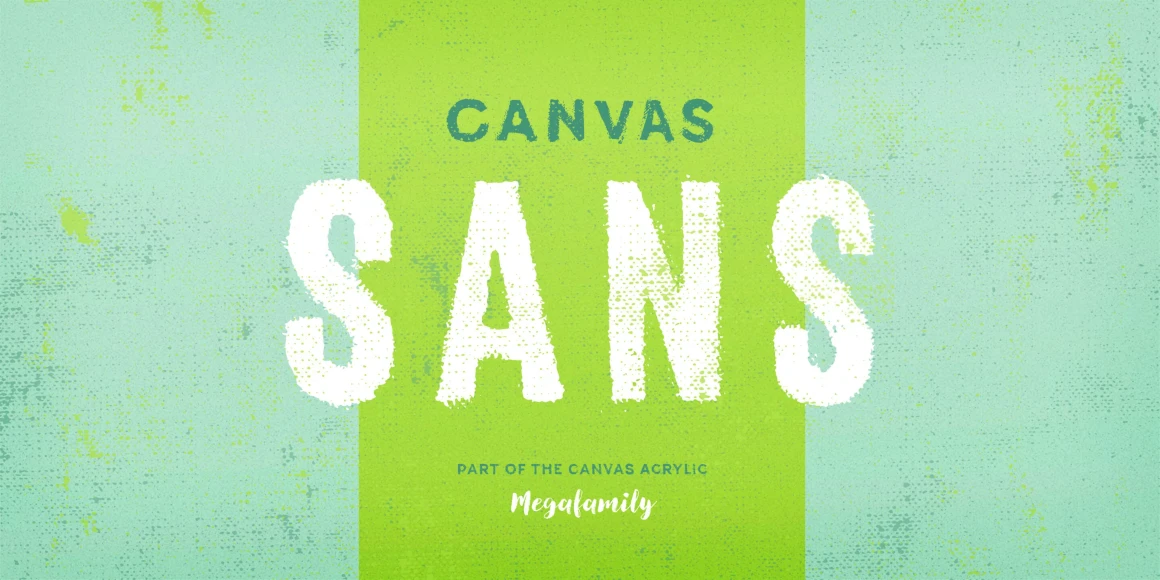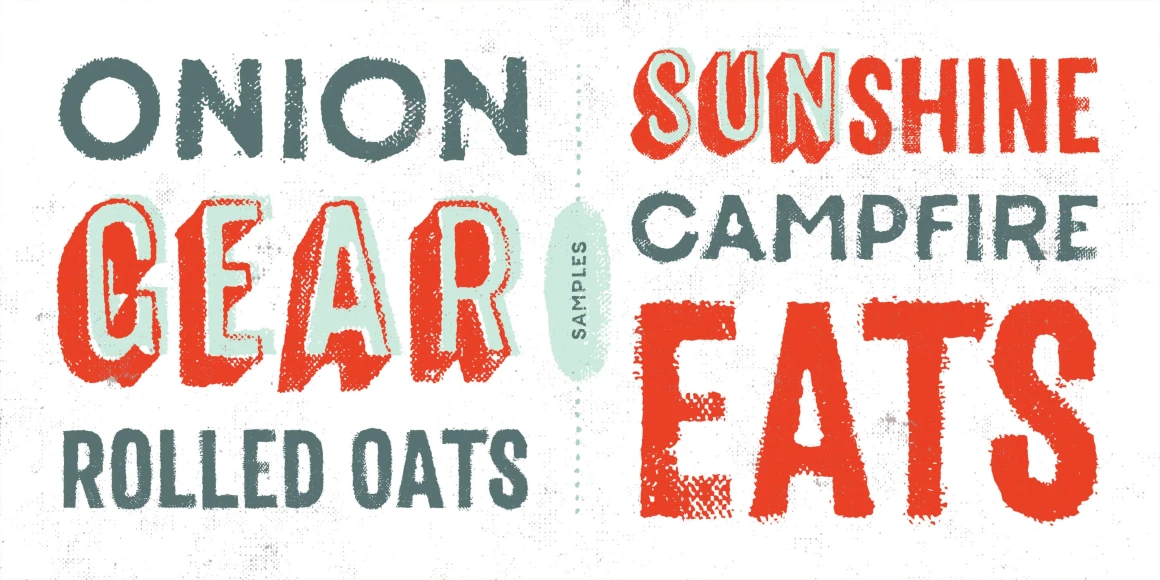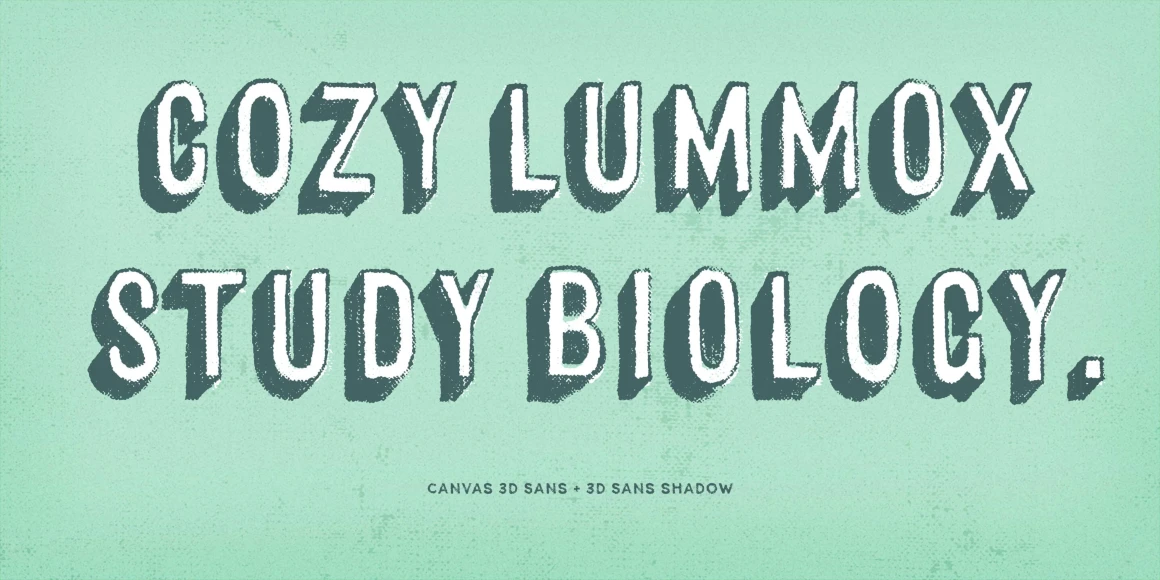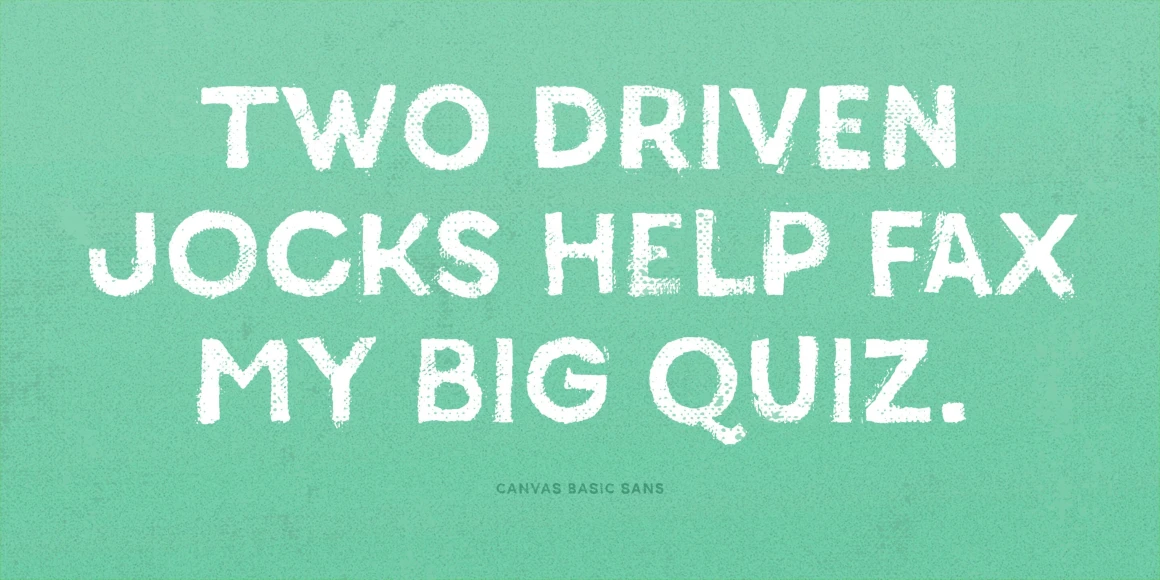
Canvas 3D Sans
By Ryan Martinson & Rhea Martinson
Canvas 3D Sans Regular
Canvas 3D Sans Shadow
Canvas 3D Sans Kerned
Canvas Sans is part of the Canvas Acrylic Megafamily. It includes Canvas 3D (a textured dimensional type set) and Canvas Basic (an all-caps geometric sans). It features authentic, hi-res texture that retains its realism even at very large sizes. Canvas Sans has double-letter ligatures that automatically fix adjacent duplicate letters. A bonus set of complimentary vector background textures, shapes and elements is available from the site.